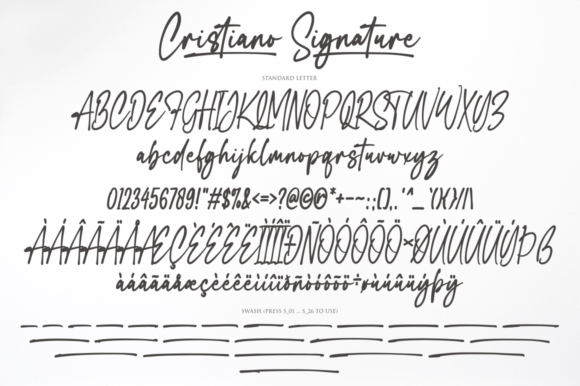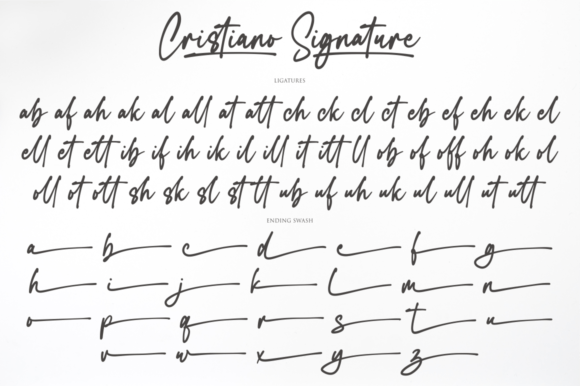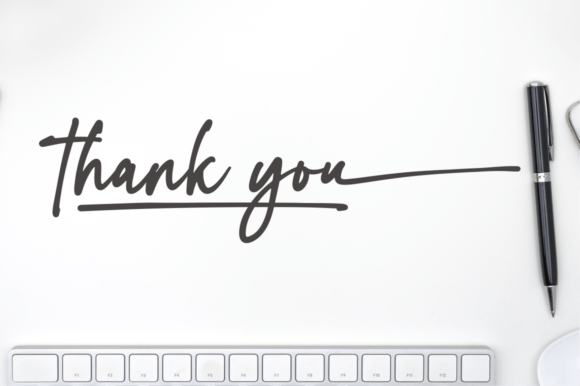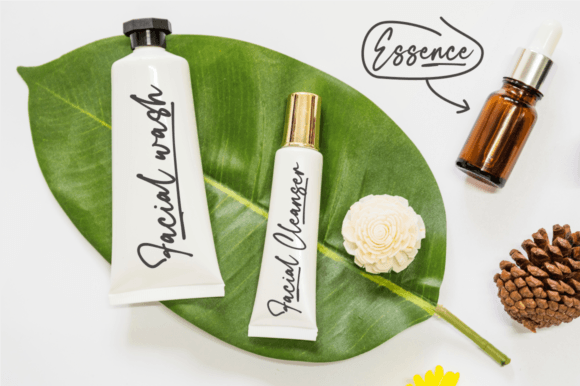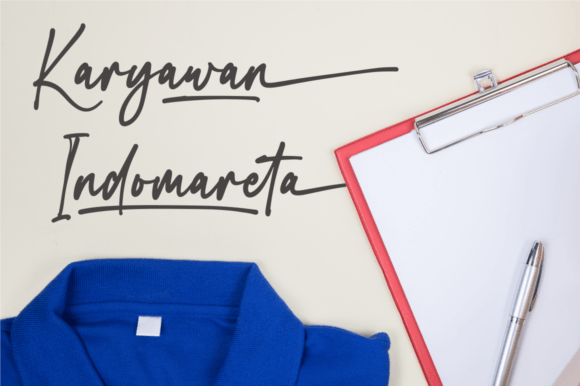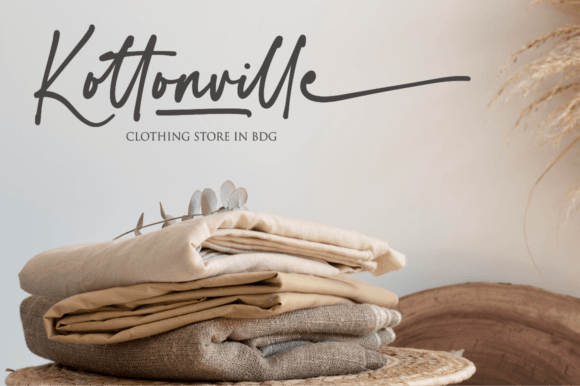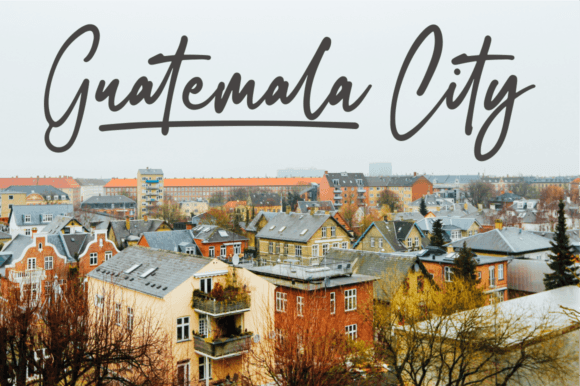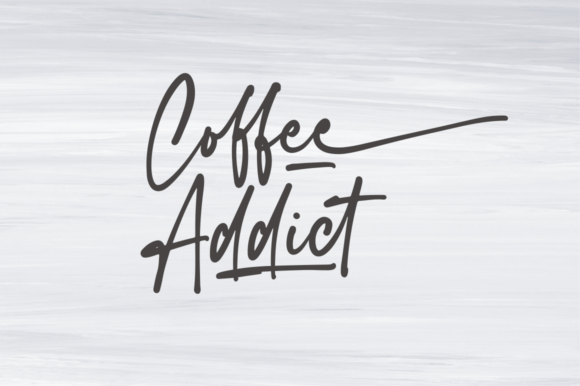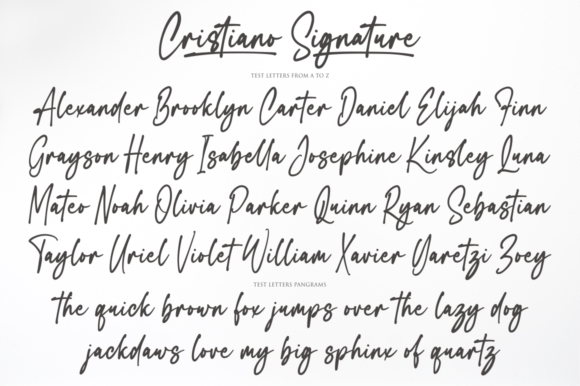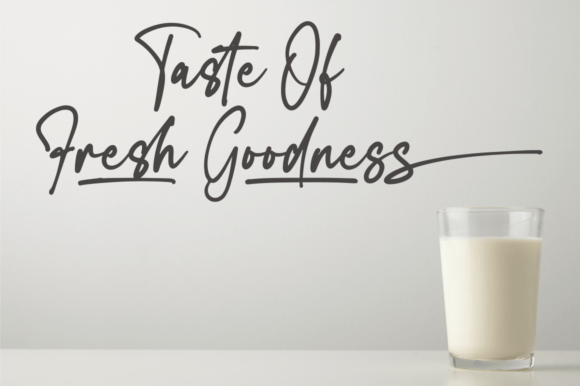
Cristiano Signature Font
About Cristiano Signature Font
“Cristiano Signature” is a dazzling script font that showcases intricate details and precise craftsmanship. This font, with its elegant and highly detailed design, proves to be a wonderful asset to your font library, offering the potential to enhance a wide range of creative creations.
The script style of “Cristiano Signature” adds a touch of sophistication and beauty to your designs. Its flowing and intricate letterforms make it particularly well-suited for projects that demand a sense of elegance and refinement. Whether used in branding, invitations, posters, or other design endeavors, this font contributes to a visually stunning and memorable aesthetic.
In branding, “Cristiano Signature” becomes a defining element that communicates a sense of luxury and style. Its dazzling script enhances the overall visual identity, making it suitable for businesses and projects that want to convey a premium and sophisticated image.
For invitations, the font brings a level of intricacy that elevates the design, creating a memorable and elegant impression. Its detailed and neatly crafted characters make it a fitting choice for events and occasions that call for a touch of glamour.
The PUA encoding of this font is a valuable feature, providing easy access to glyphs and swashes. This allows for creative customization and personalization, giving you the flexibility to tailor the font to the specific needs of your design projects.
In summary, “Cristiano Signature” is a font that exudes sophistication and detail, making it a perfect choice for a variety of design endeavors. Whether you’re working on branding, invitations, posters, or other creative projects, let “Cristiano Signature” be the dazzling script font that enhances your creations.